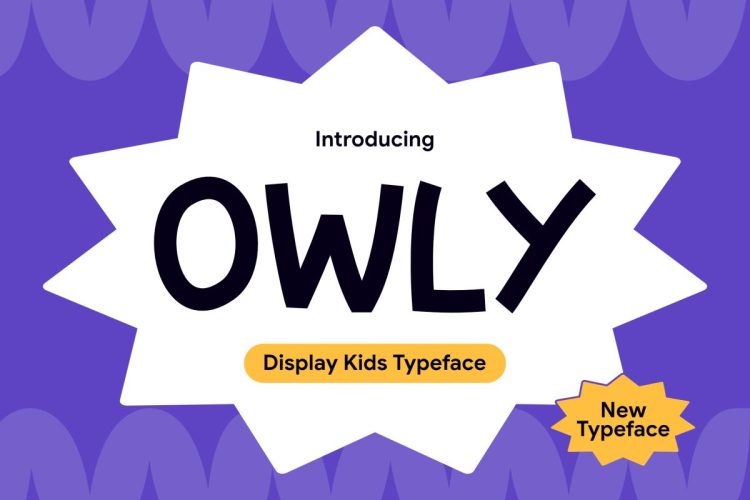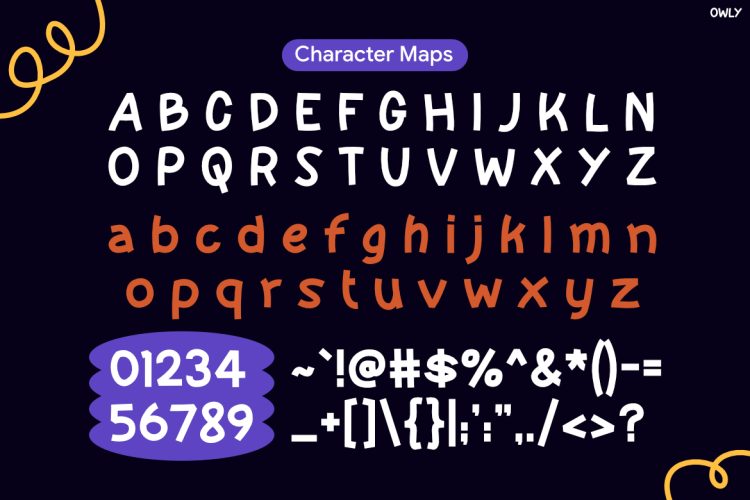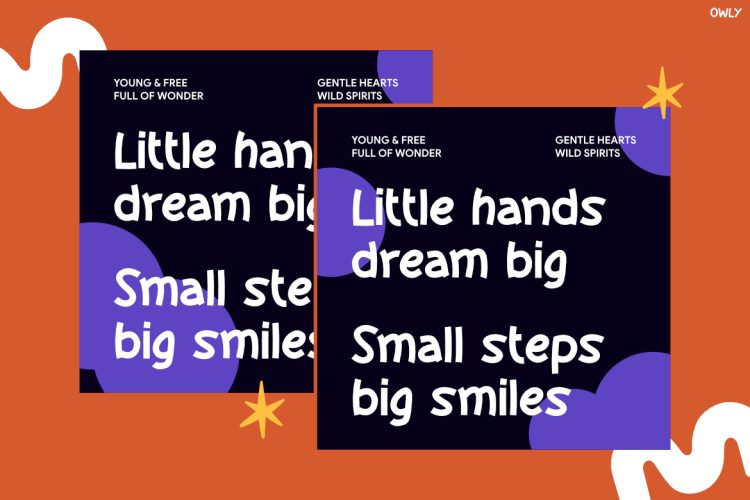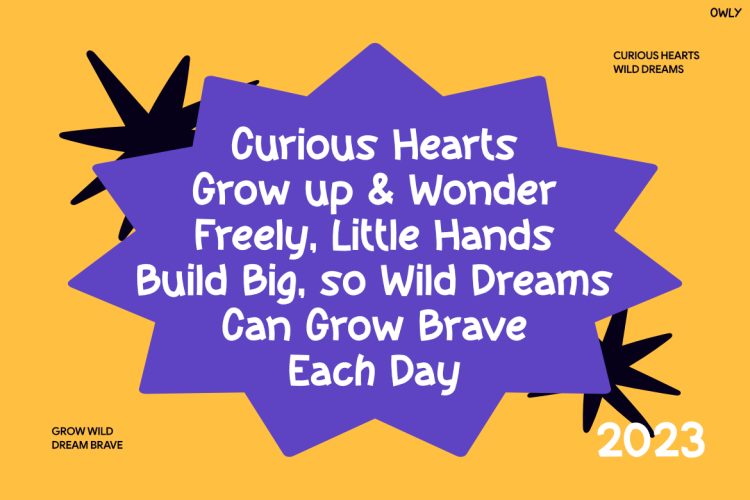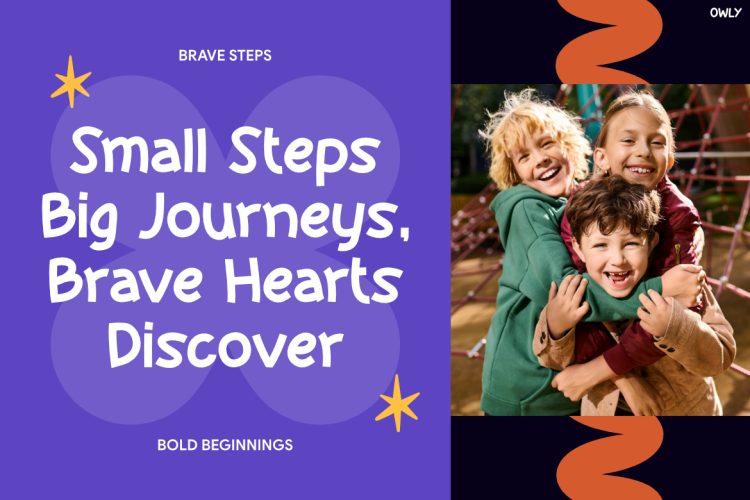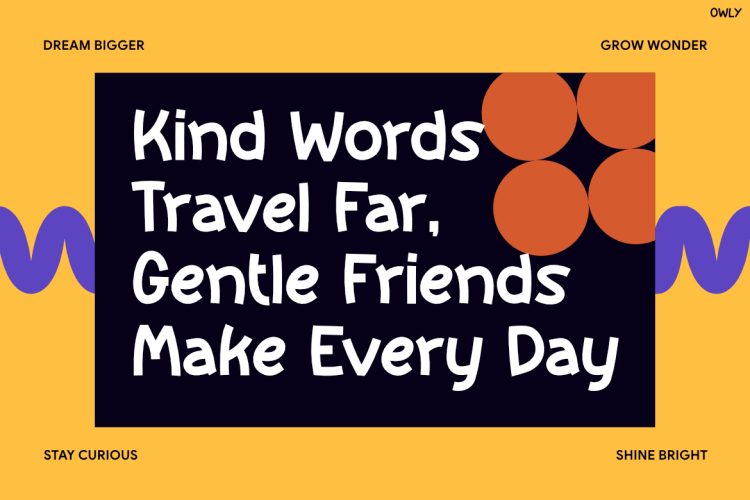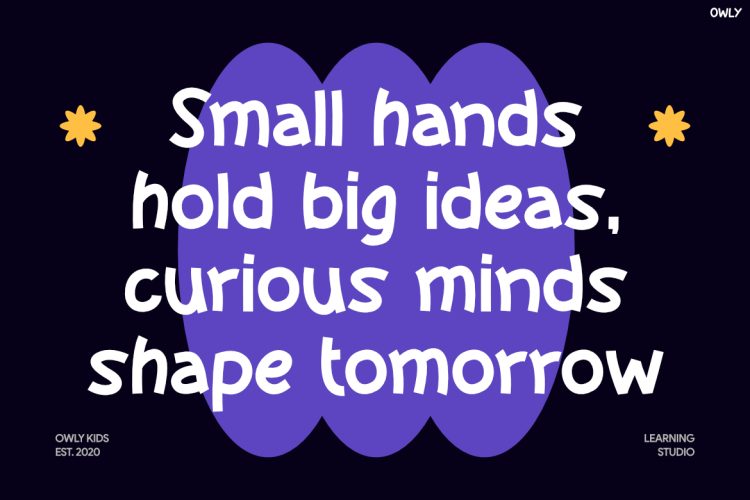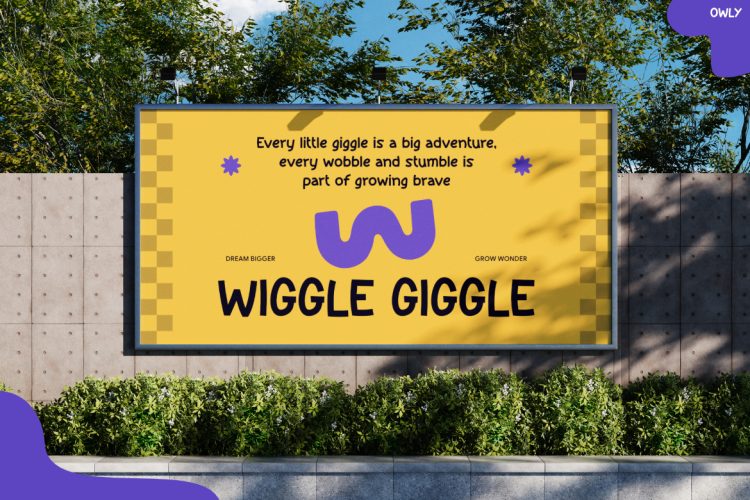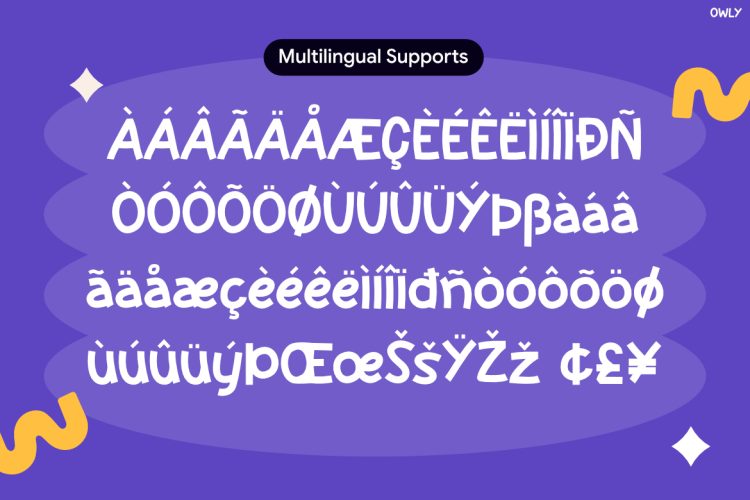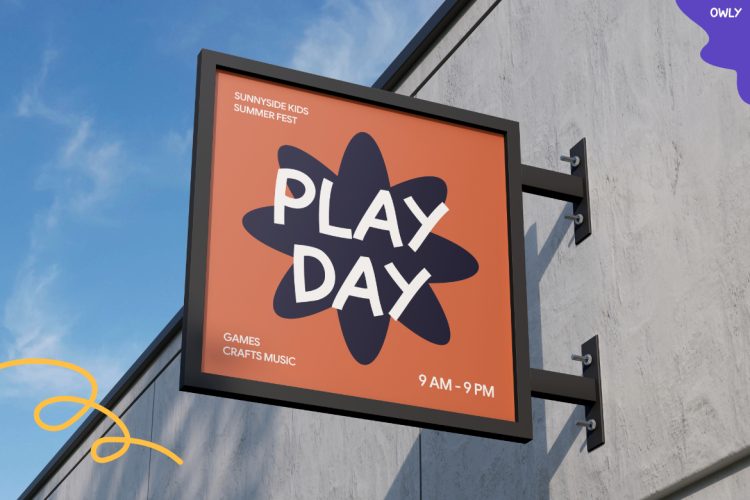
Owly โ Playful Kids Display Font
Kids Font Owly brings a cheerful and playful mood to creative typography. With its hand-drawn letterforms, it feels warm, friendly, and full of character. Moreover, chunky strokes give the font a bold display presence. At the same time, its bouncy shapes create a fun and approachable look.
In addition, Owly includes Multilingual Support for 67 Languages. Therefore, it is suitable for both local and international design projects. Furthermore, its expressive characters make headlines, quotes, and short messages more lively. As a result, your designs can feel playful while staying clear and easy to read.
Perfect for Kids & Creative Projects
Owly is perfect for childrenโs brands, storybooks, school projects, posters, toys, stickers, and packaging. Besides that, it works well for birthday invitations, classroom materials, and social media graphics. You can also use it for educational content, nursery designs, playful branding, and creative campaigns.
For designers and content creators, Owly adds a youthful touch to every layout. Meanwhile, its bold forms help important words stand out. To create an even more playful look, pair it with colorful illustrations, doodles, photos, and fun shapes.
Make Every Word More Fun
So, why settle for ordinary typography? Owly turns simple words into cheerful visual moments. Plus, its friendly personality makes creative projects feel more inviting. Ultimately, it is a fun choice for designs that need warmth, energy, and personality. Get Kids Font Owly today and bring more smiles to your next creative project!